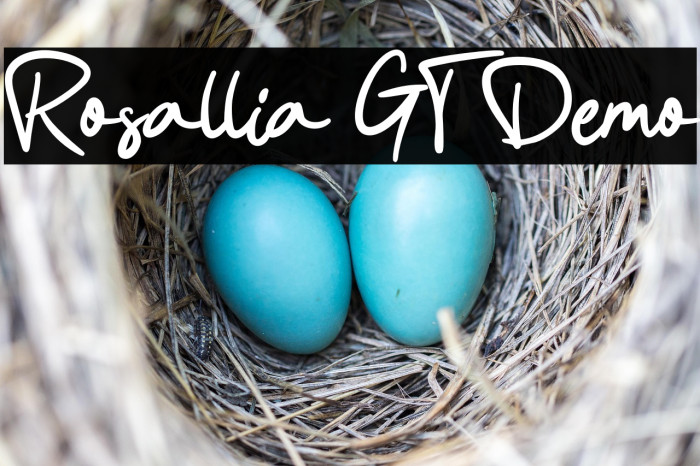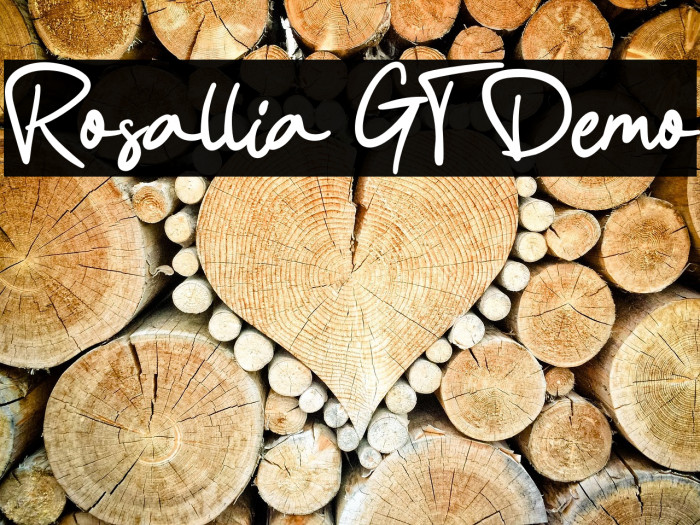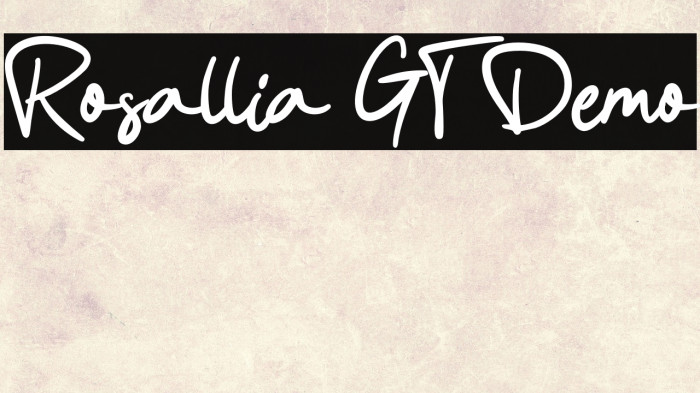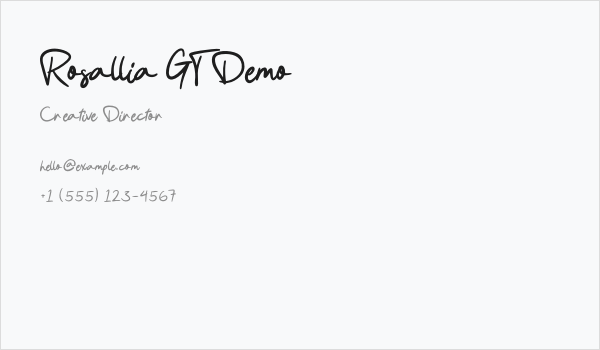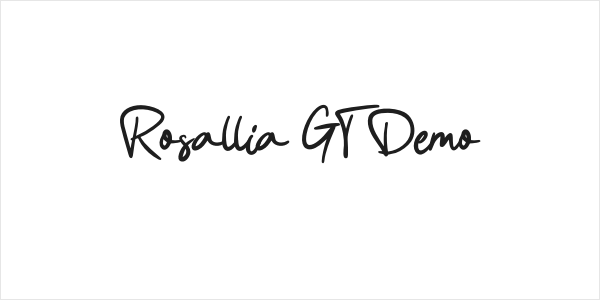
Rosallia GT Demo Font
Rosallia GT Demo Description
This font features a lively and dynamic handwritten style, characterized by its fluid and natural strokes. The uppercase letters have a playful, slightly exaggerated form, while the lowercase letters maintain a consistent flow, enhancing readability. The numbers and special characters complement the alphabet with their cohesive design, making the font versatile for various uses. The overall appearance is casual yet stylish, ideal for projects that require a personal touch.
Overall StyleCasual, Stylish
Use CaseLogos, Invitations, Greeting Cards
Proposed ProjectsIdeal for greeting cards, invitations, personal branding, and creative projects that require a personal touch.